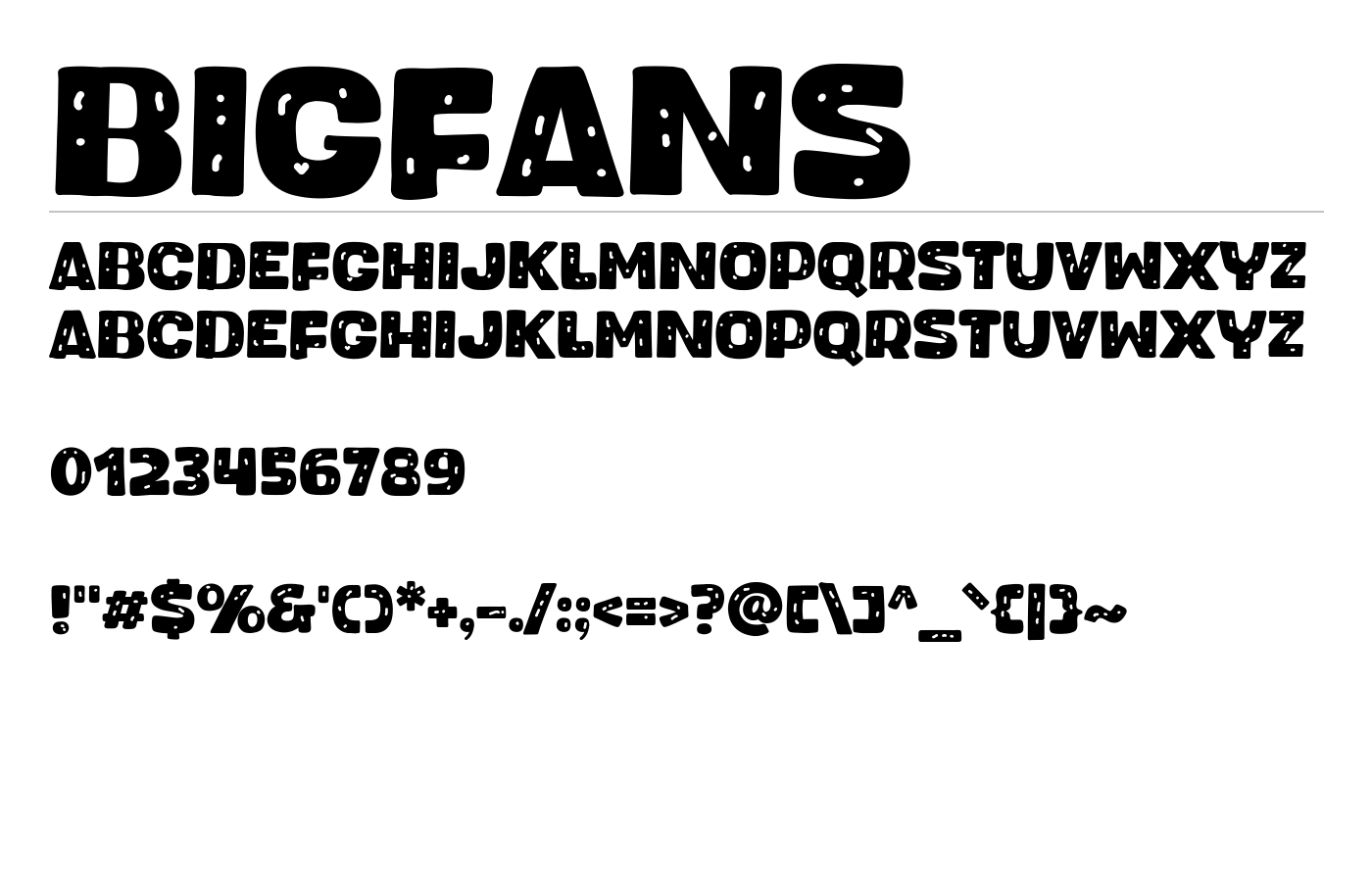
Bigfans is a bold, playful display font with rounded, chunky letterforms that feature quirky, irregular details and a textured, almost hand-cut look. Its thick, condensed style and all-uppercase design make it perfect for fun, eye-catching headlines, branding, and packaging that seek a spirited, informal vibe. This font works well where a friendly, energetic personality is needed to grab attention with a unique, approachable style.
Bigfans Font
About Bigfans Font
| Font family | Bigfans Font |